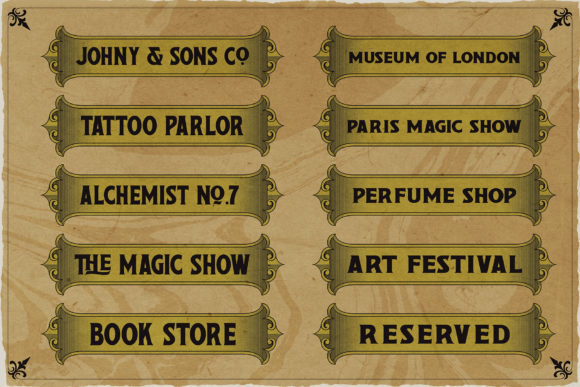
Victorian Letterhead Font
Victorian Letterhead is a cool and stylish duo font (serif and display). This font is PUA encoded which means you can access all of the glyphs and swashes with ease. Fall in love with its incredibly versatile style and use it to create spectacular designs!